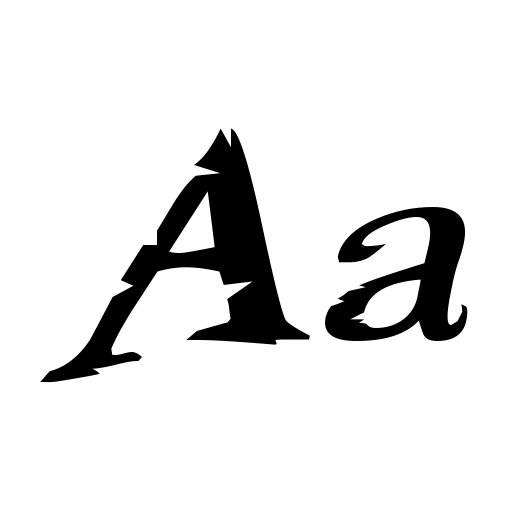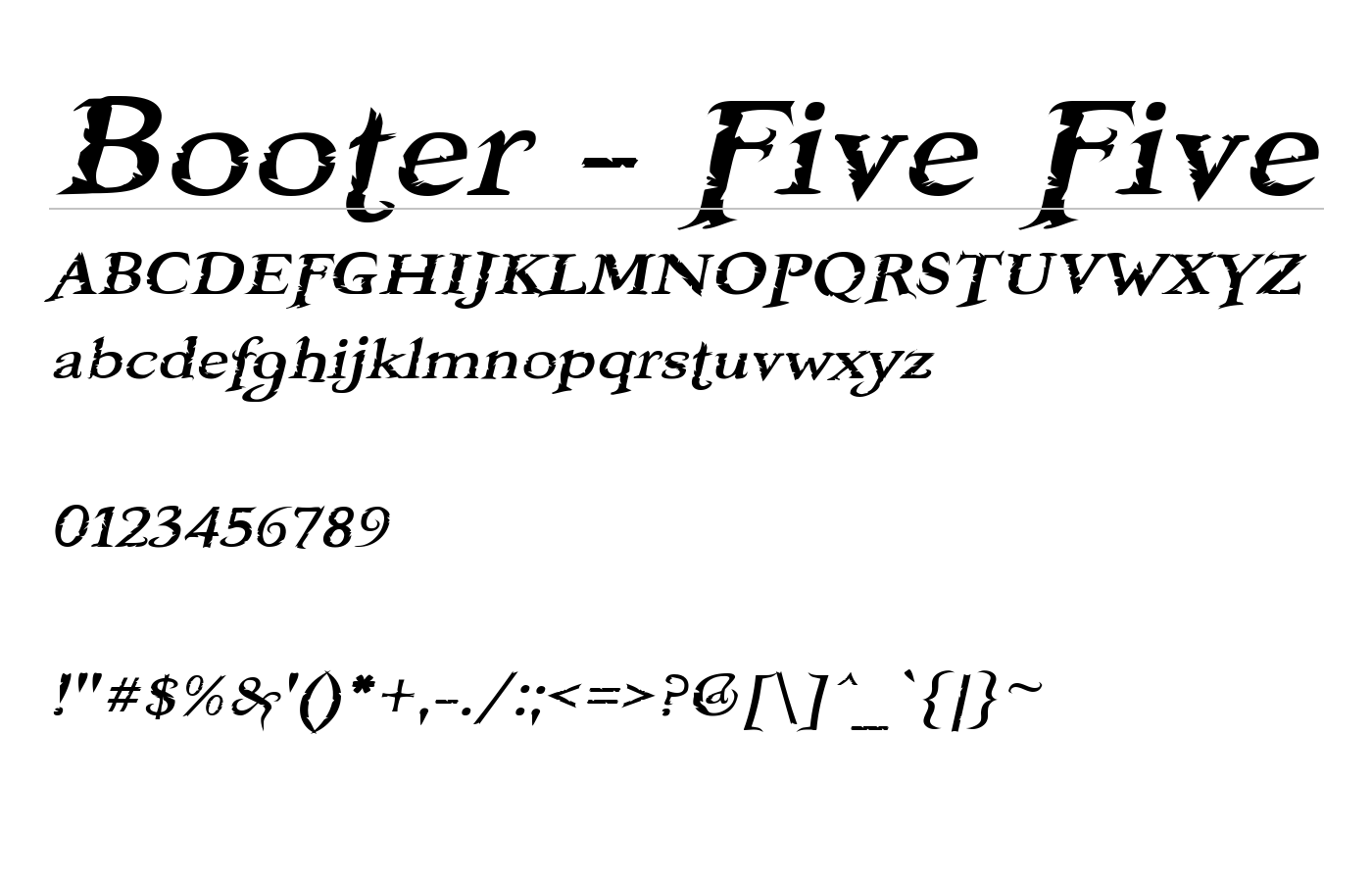
Booter - Five Five is a serif font with a distinctive jagged, edgy texture that adds a bold and dramatic flair to its traditional italicized form. Its high contrast strokes and sharp, irregular details give it a striking, almost rebellious personality, making it ideal for attention-grabbing headlines, posters, or branding where a unique, adventurous style is desired. This font works well in creative and dynamic contexts where impact and individuality are key.
Booter - Five Five Font
About Booter - Five Five Font
| Designer | Outlines by Graham Meade, space geometry by Apostrophe ('). |